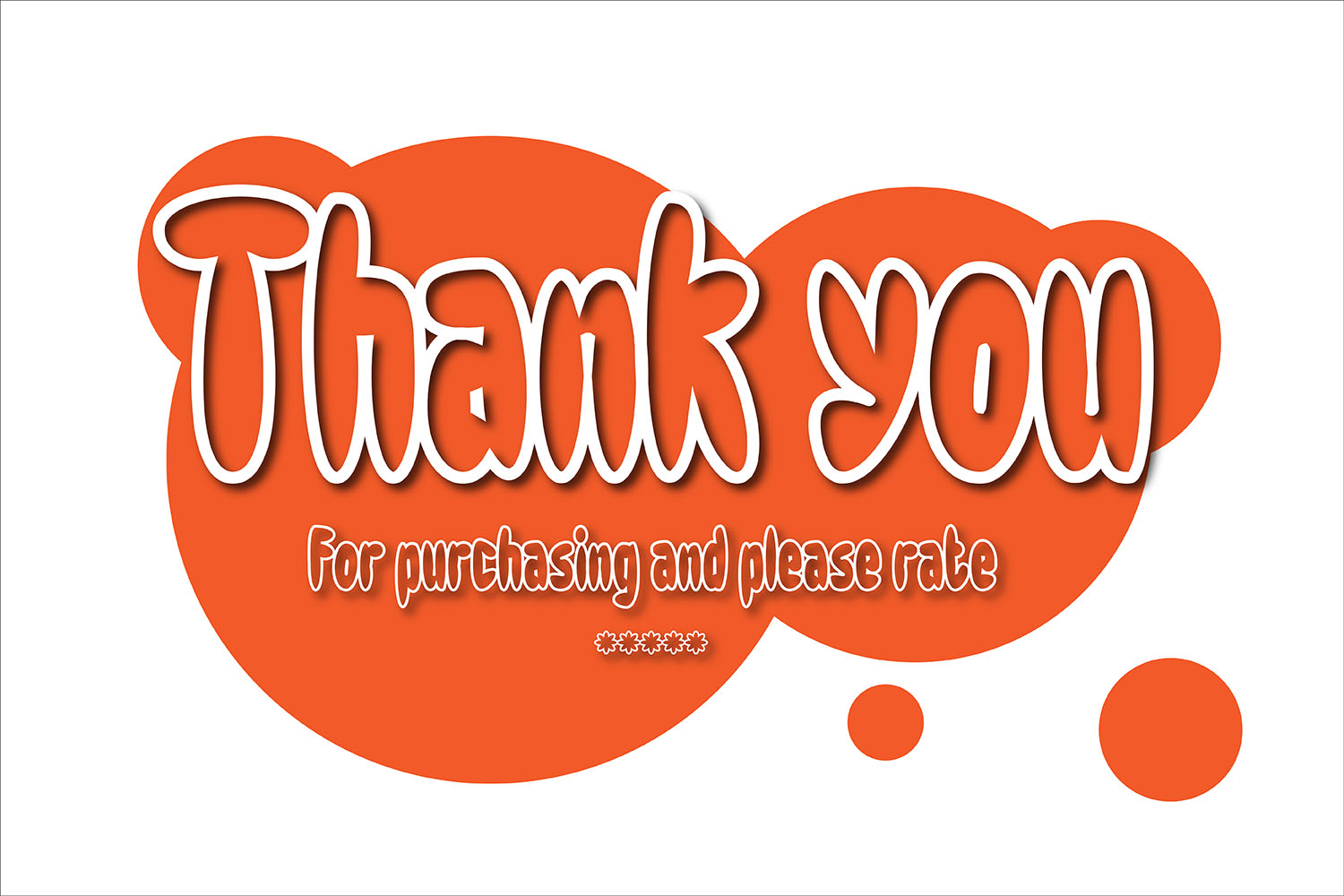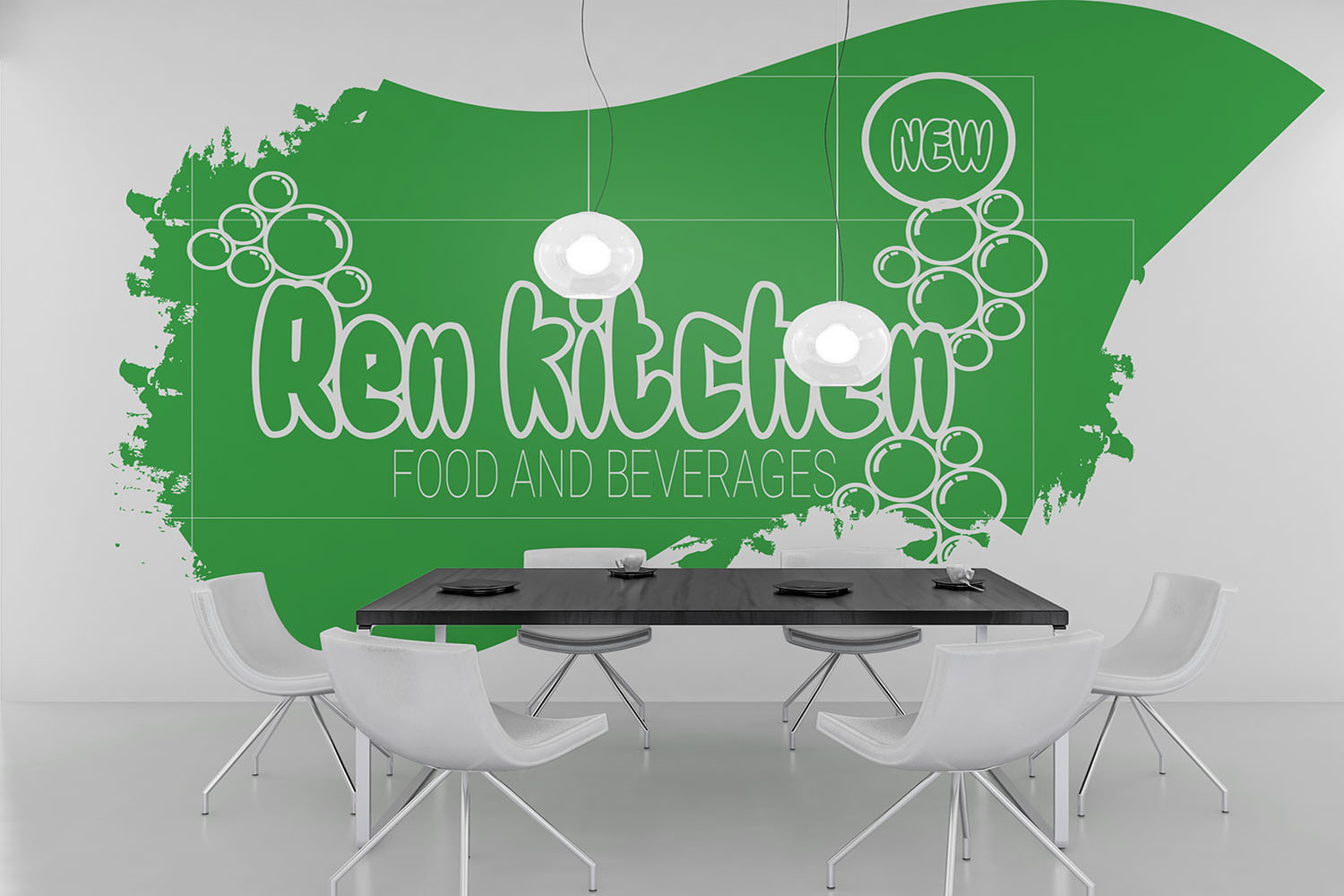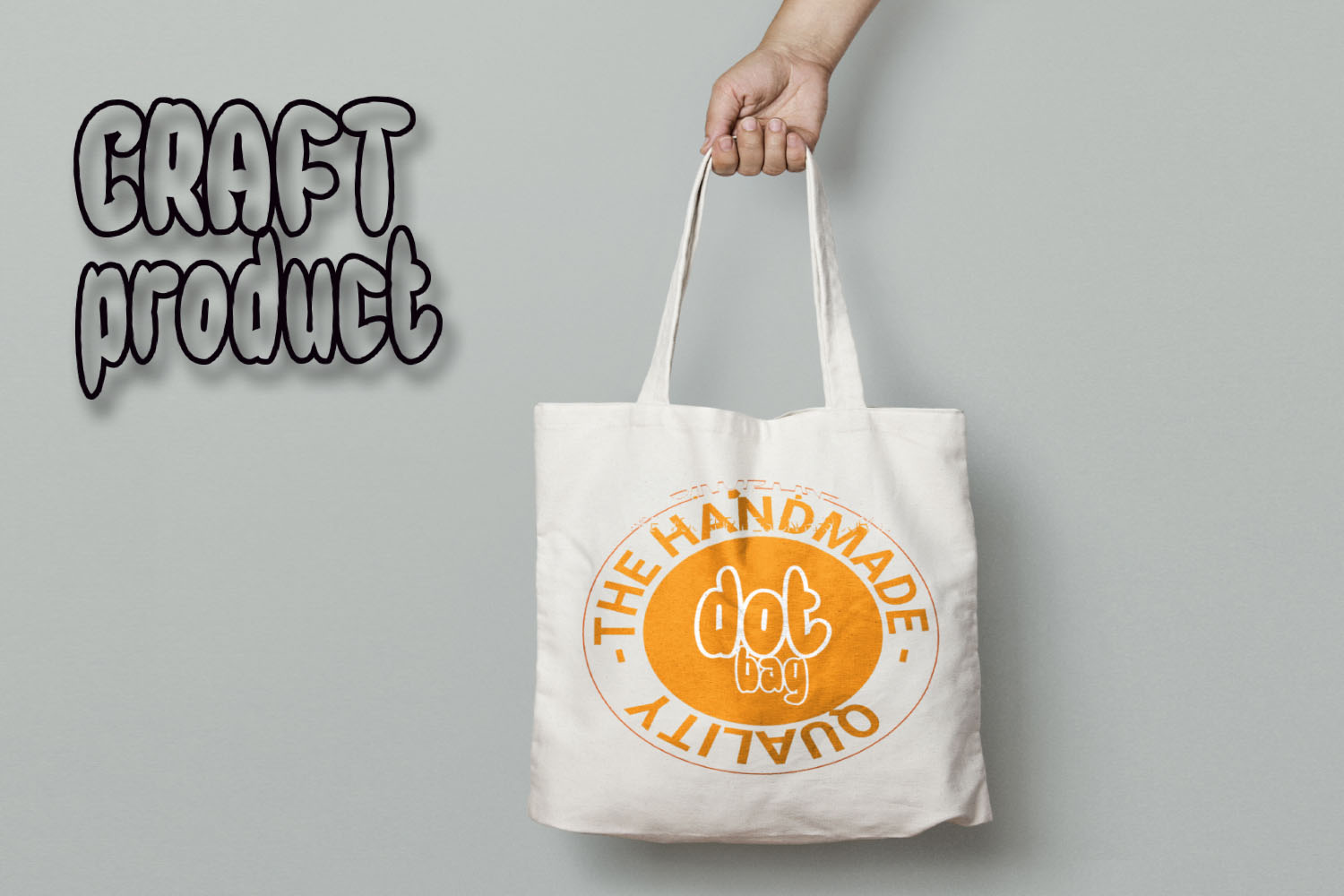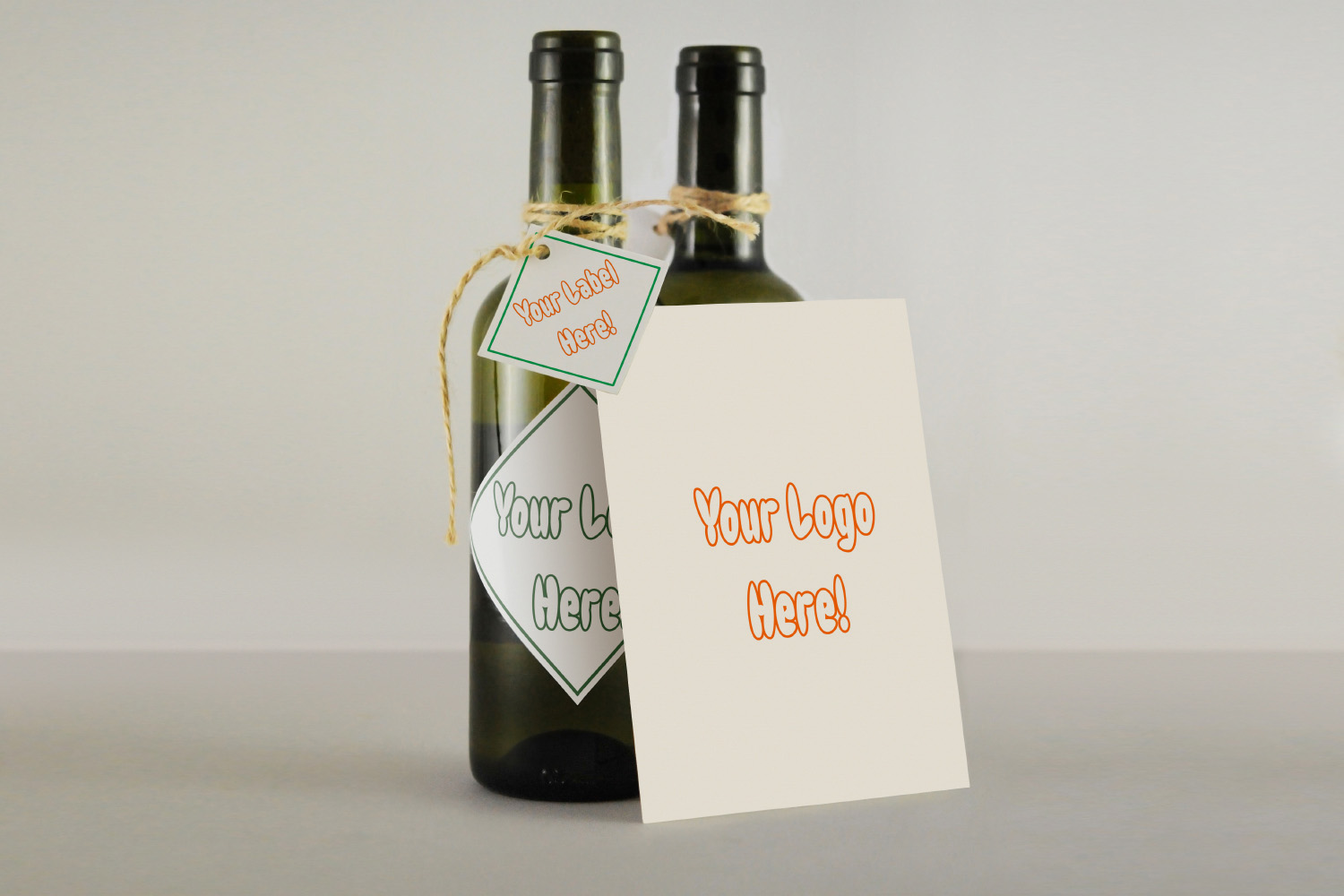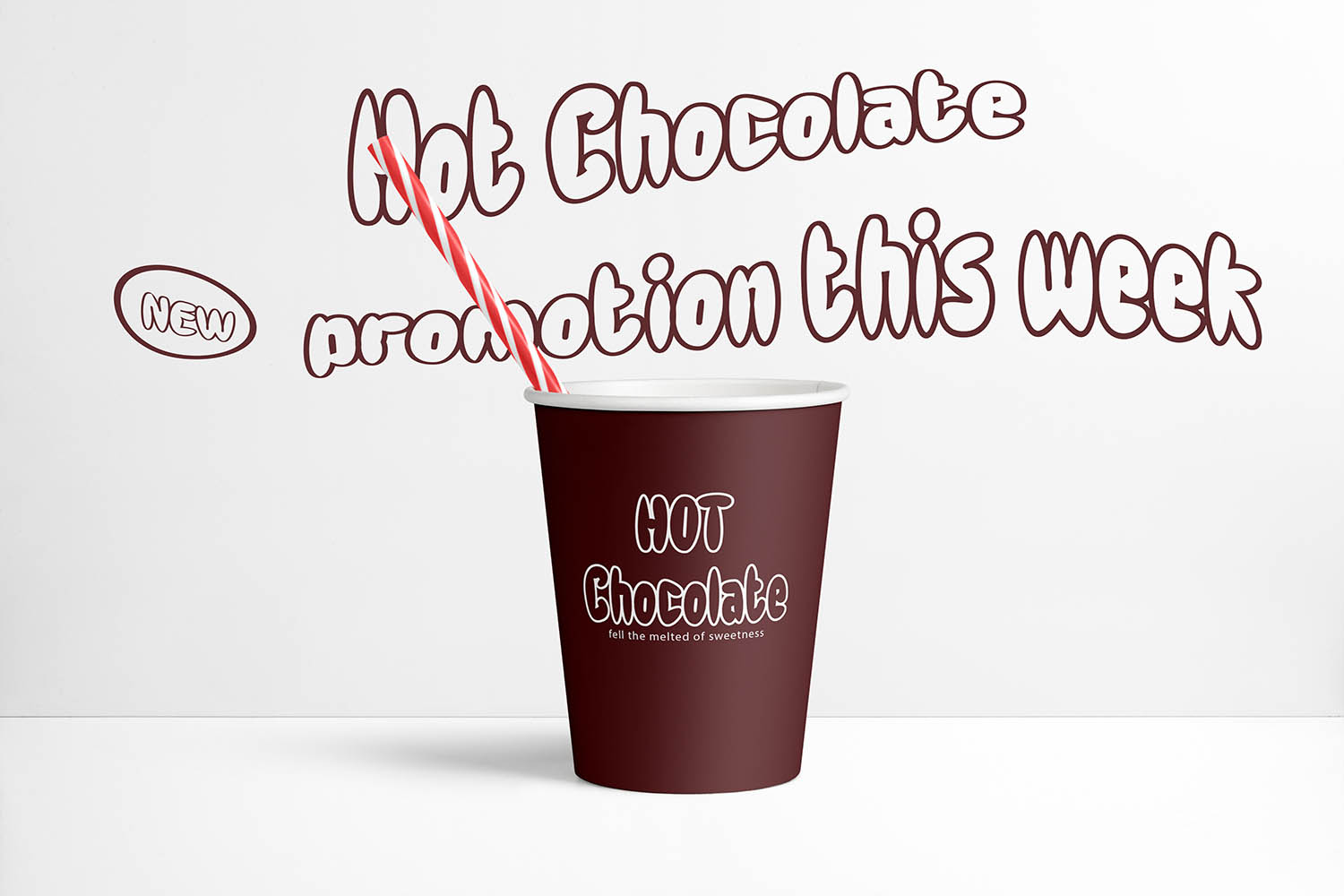
About Sweet Bubble Font
Sweet Bubble: A Playful and Bubbly Font for Whimsical Designs
In the world of typography, where fonts come in countless styles and variations, Sweet Bubble stands out as a font that brings joy and playfulness to any design. With its whimsical and bubbly appearance, it has become a popular choice for designers seeking to create eye-catching and lighthearted visuals.
At first glance, Sweet Bubble captures attention with its unique outline font style. Each letter seems to float on the page, as if made of soap bubbles caught in mid-air. The rounded edges and smooth curves give the font a soft and friendly look, inviting viewers to engage with the content.
One of the key strengths of Sweet Bubble is its versatility. It adapts well to a wide range of design projects, making it suitable for various purposes. From children’s book covers and party invitations to playful logos and website headlines, Sweet Bubble adds a touch of whimsy to every application.
With Sweet Bubble, you can unleash your creativity and explore endless possibilities. The font’s open and spacious design allows for effortless legibility even at smaller sizes, ensuring that your message is clear and easy to read. Its balanced proportions and carefully crafted letterforms make it visually pleasing and harmonious in any layout.
To complement the font itself, the Sweet Bubble package includes a collection of extras that add even more charm and versatility to your designs. These extras may consist of decorative elements such as playful icons, whimsical doodles, or even pre-designed graphics that perfectly match the style of the font. This additional content enables you to create cohesive and visually appealing compositions effortlessly.
The beauty of Sweet Bubble lies not only in its visual appeal but also in its ability to evoke emotions and create a positive atmosphere. Its bubbly and carefree nature appeals to the childlike wonder in all of us, making it an ideal choice for designs targeting a younger audience or those seeking to inject a sense of fun and joy into their projects.
When working with Sweet Bubble, don’t be afraid to experiment and explore different creative directions. Mix and match the font with other complementary typefaces or pair it with vibrant colors to create visually captivating compositions. The font’s versatility allows it to seamlessly blend with other design elements, giving you the freedom to express your unique style and vision.
Whether you’re designing for a children’s book, a playful branding project, or simply want to add a touch of whimsy to your designs, Sweet Bubble is the perfect companion. Its playful and bubbly nature will bring a smile to your audience and create a memorable visual experience.
In conclusion, Sweet Bubble is more than just a font – it’s a gateway to a world of imagination and playfulness. With its charming outline style, versatile applications, and delightful extras, it offers endless opportunities for creating whimsical and visually captivating designs. Let Sweet Bubble be your guide as you embark on a creative journey filled with joy, creativity, and endless possibilities.